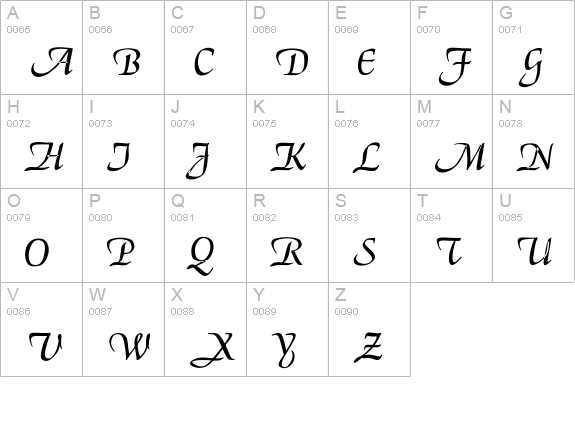
RSElGarrett font is a stylish and modern typeface that exudes elegance and sophistication. With its clean lines and sleek curves, this versatile font is perfect for a wide range of design projects, from branding to editorial design. Its bold and impactful appearance will make your text stand out and leave a lasting impression on your audience. What sets RSElGarrett font apart is that it is available for free download at FontsMarket.com. This means you can easily access this high-quality font without any cost, making it a valuable addition to your design toolkit. Whether you're a professional designer or just starting out, RSElGarrett font offers a professional look that will elevate your projects to the next level. Don't miss out on the opportunity to enhance your designs with this exceptional font - download RSElGarrett today and see the difference it can make!